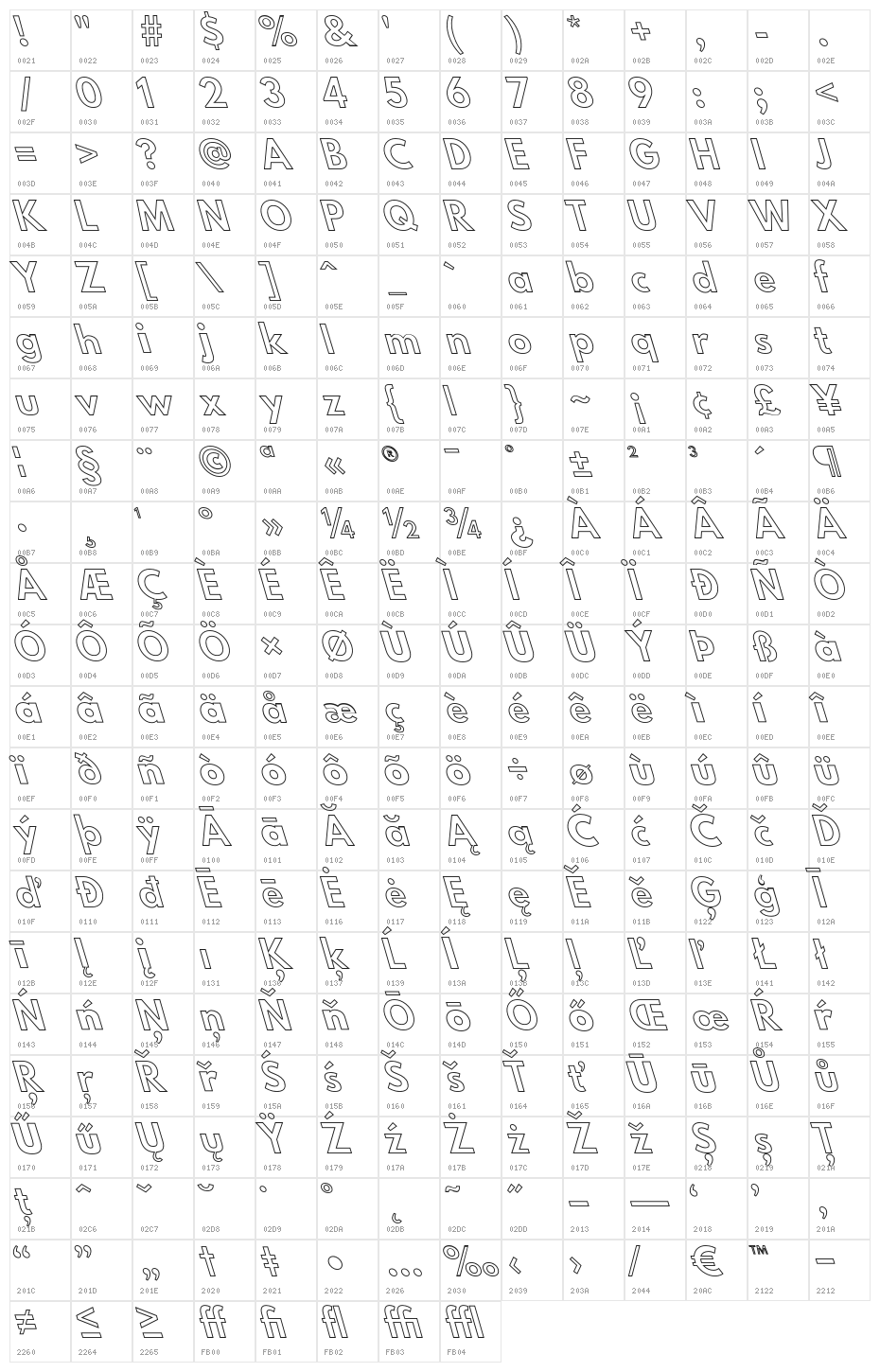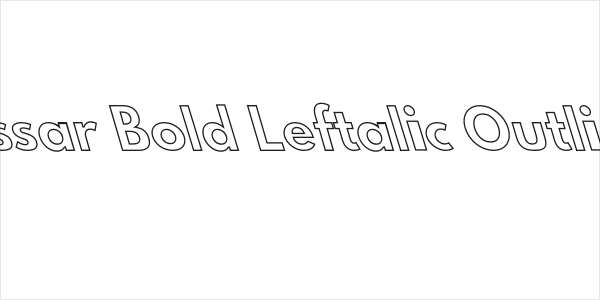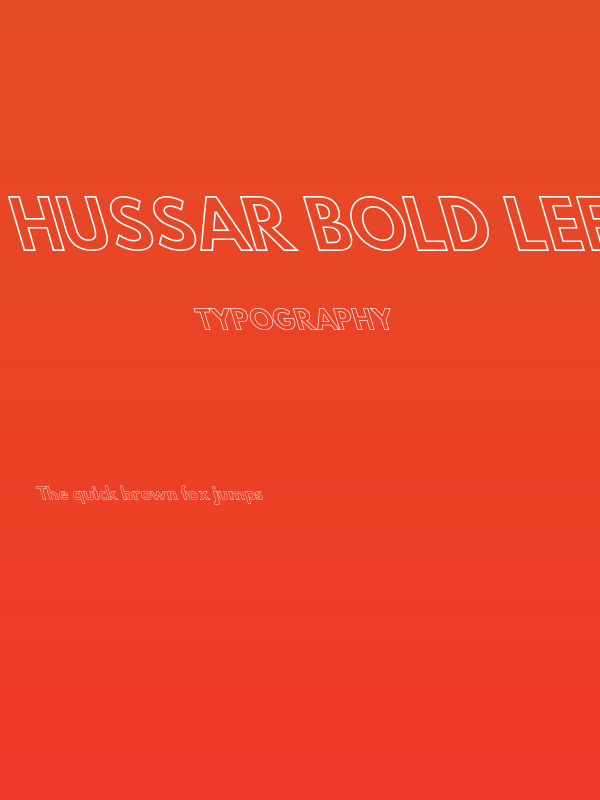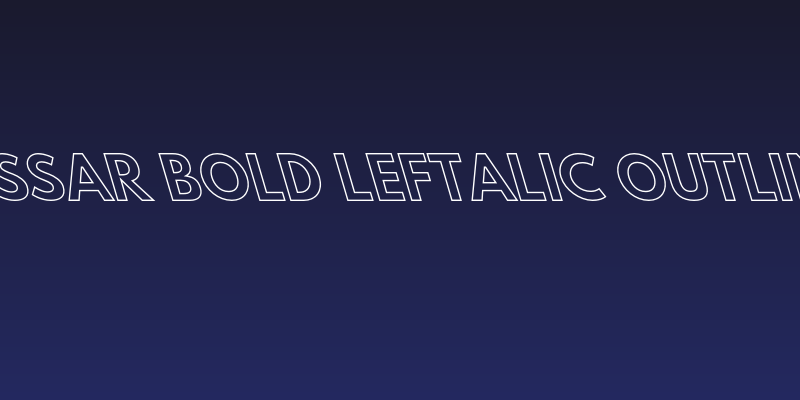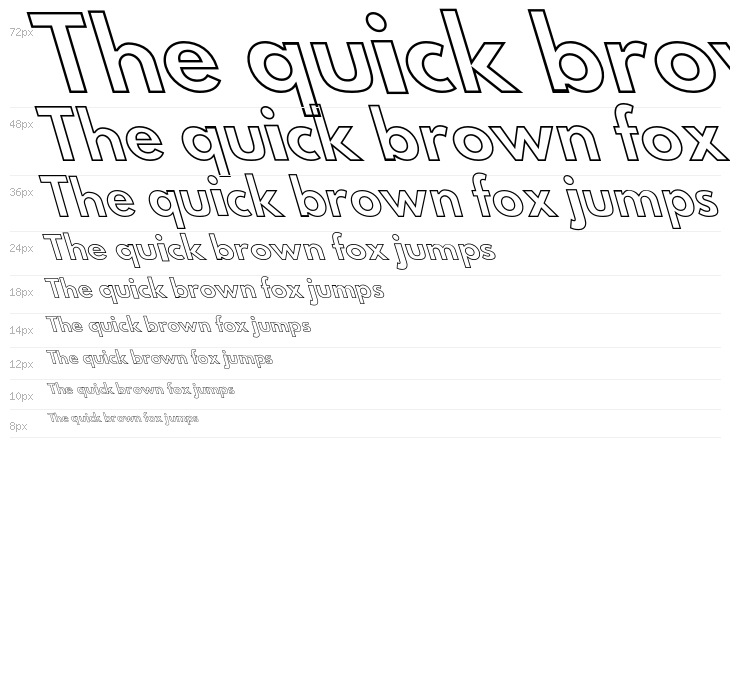
Hussar Bold Leftalic Outline Font
Hussar Bold Leftalic Outline Description
This font features a bold, outlined style with a leftward slant, giving it a unique and dynamic appearance. The characters are well-defined with a consistent thickness throughout, creating a strong visual impact. The uppercase and lowercase letters maintain a uniform width, while the numerals and special characters are designed to complement the overall aesthetic. The outline effect adds a layer of depth, making it suitable for eye-catching designs. Its modern and playful style makes it versatile for various creative applications.
| Proposed Projects | Ideal for posters, headlines, logos, and branding materials that require a bold and distinctive appearance. |